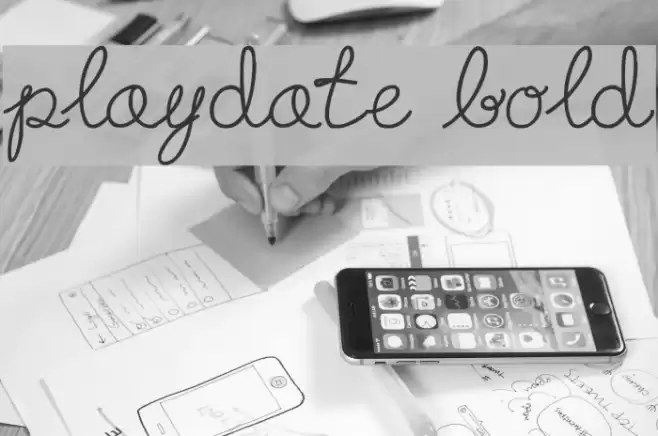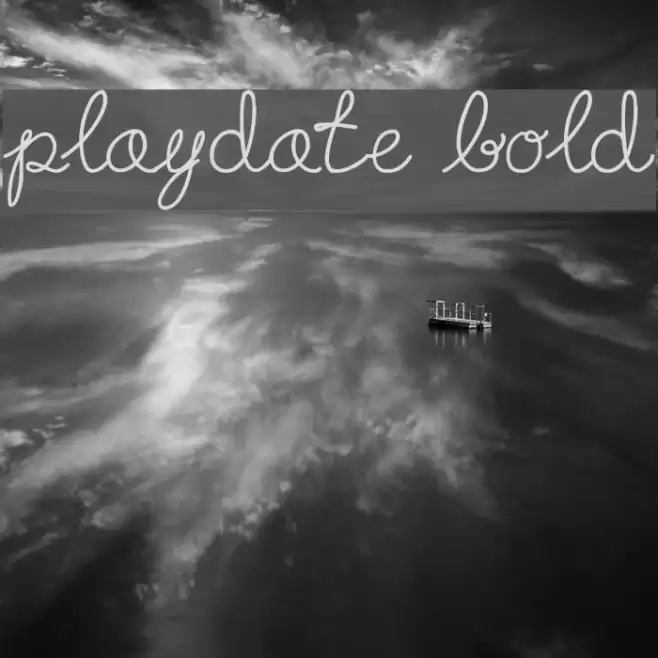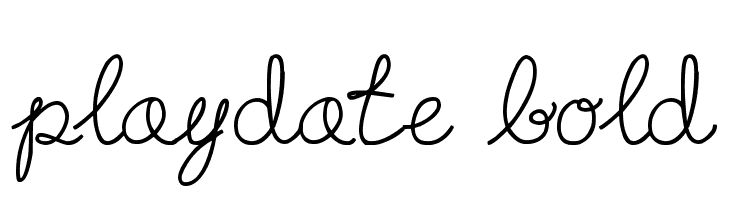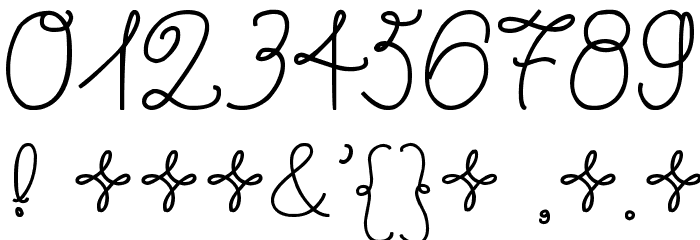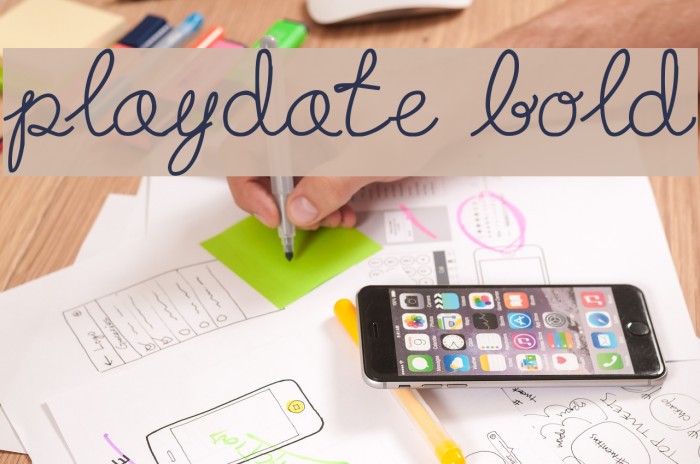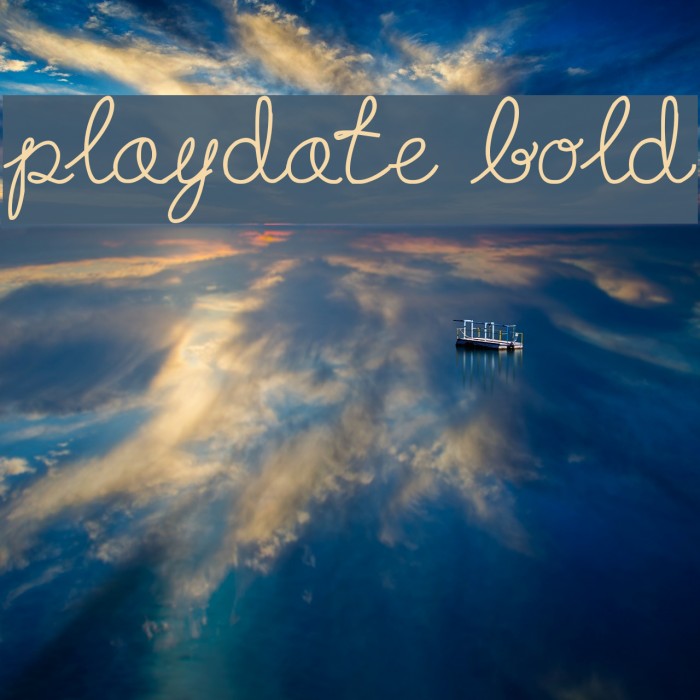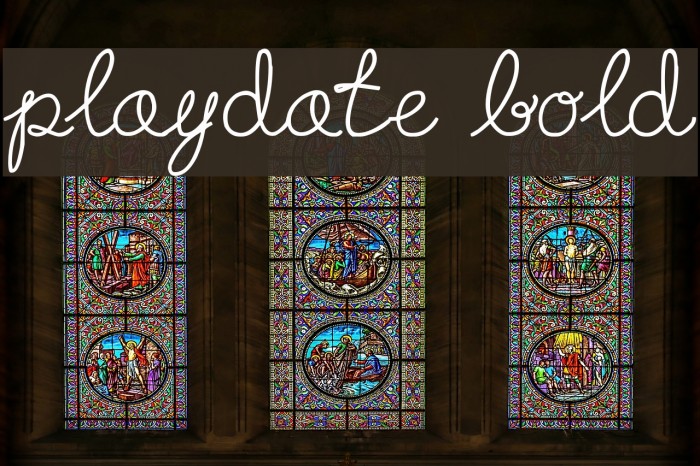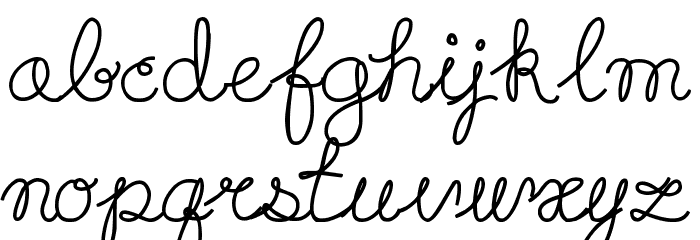
Playdate Bold Font
Playdate Bold Description
This font features a playful and whimsical script style, characterized by its flowing, connected letters that mimic a casual handwriting. The strokes are consistent in width, giving it a uniform appearance, while the loops and curves add a touch of elegance and fun. The characters are well-spaced, allowing for readability despite the cursive nature. The numbers and special characters maintain the same playful style, ensuring a cohesive look across all text elements. This font is ideal for projects that require a personal, friendly touch.
A playful, whimsical script font with flowing, connected letters from Uncategorized fonts.
- Proposed Projects: Greeting cards, invitations, children's books, playful branding, and social media graphics.
- Overall Style: Playful
- Use Case: Logos, Headlines, Decorative text